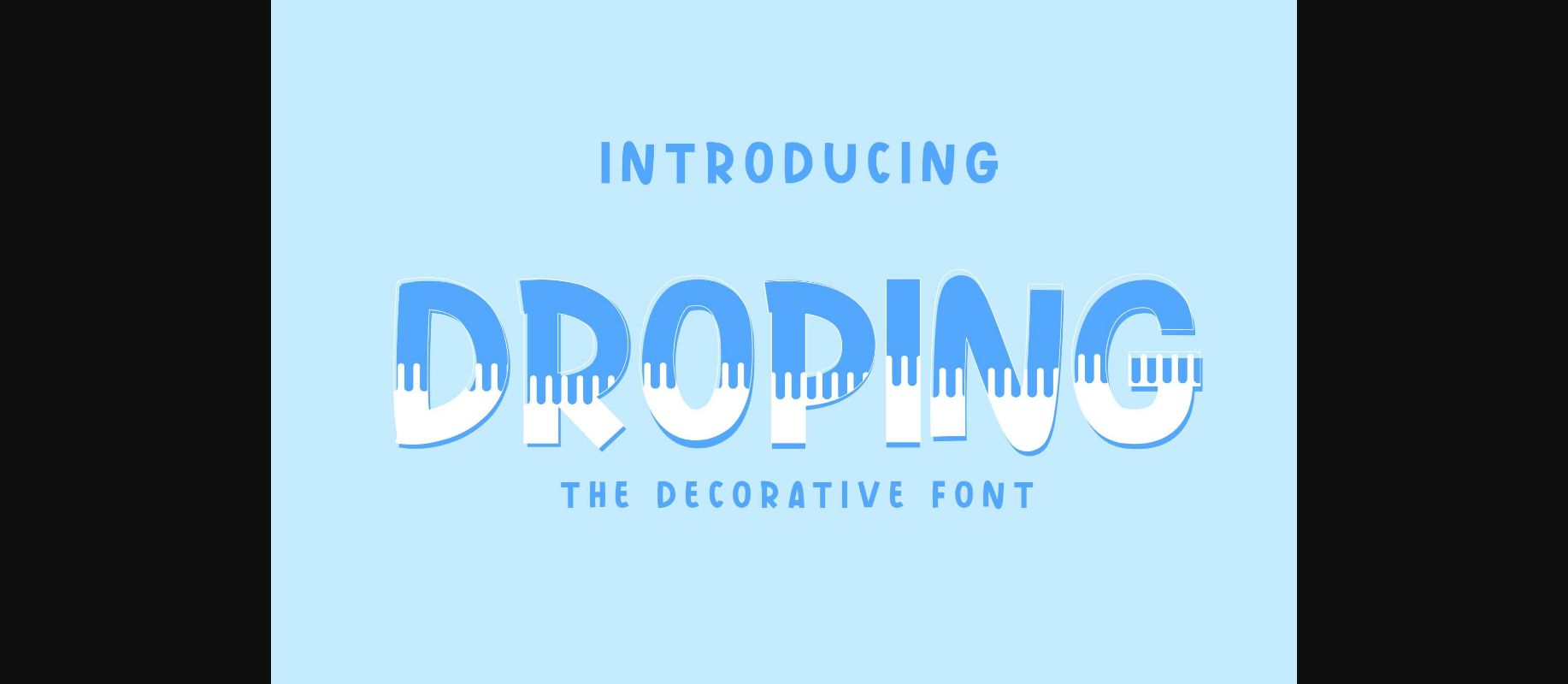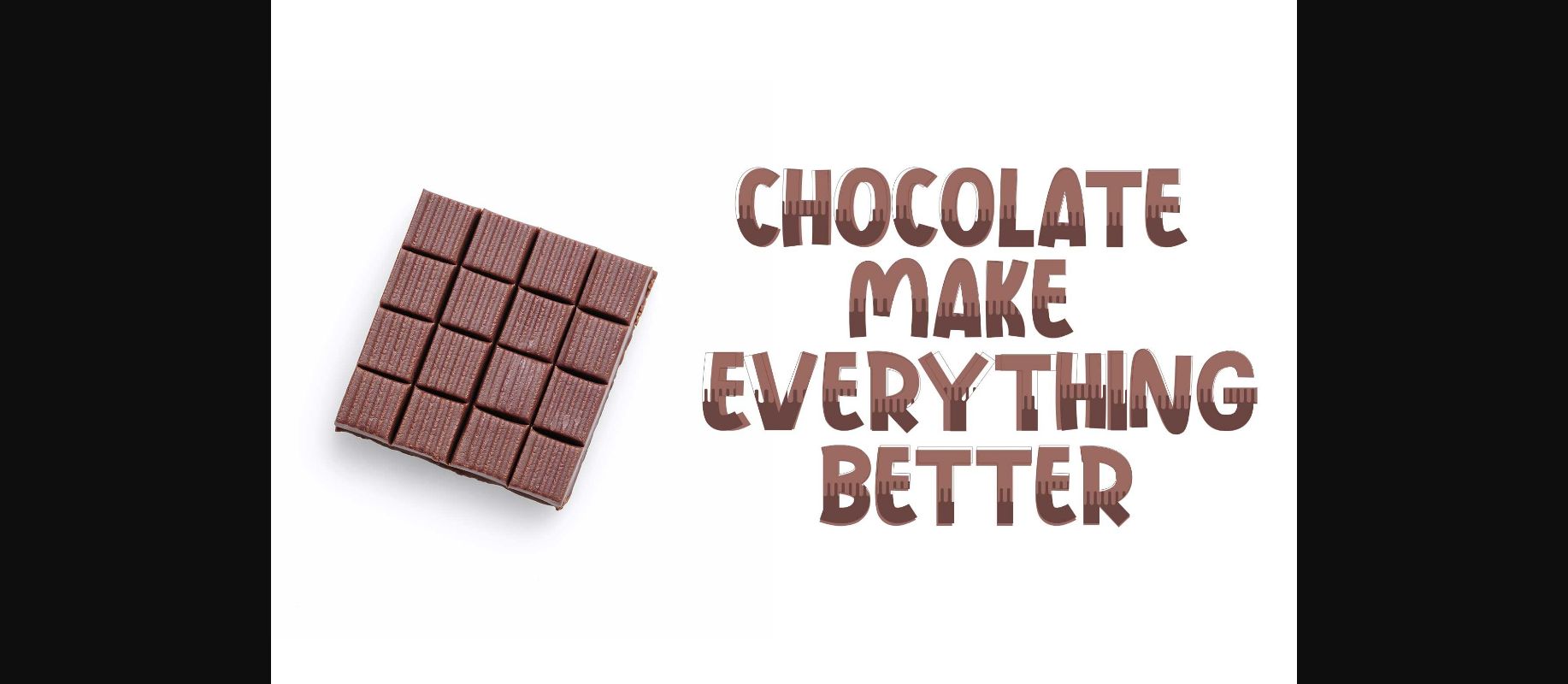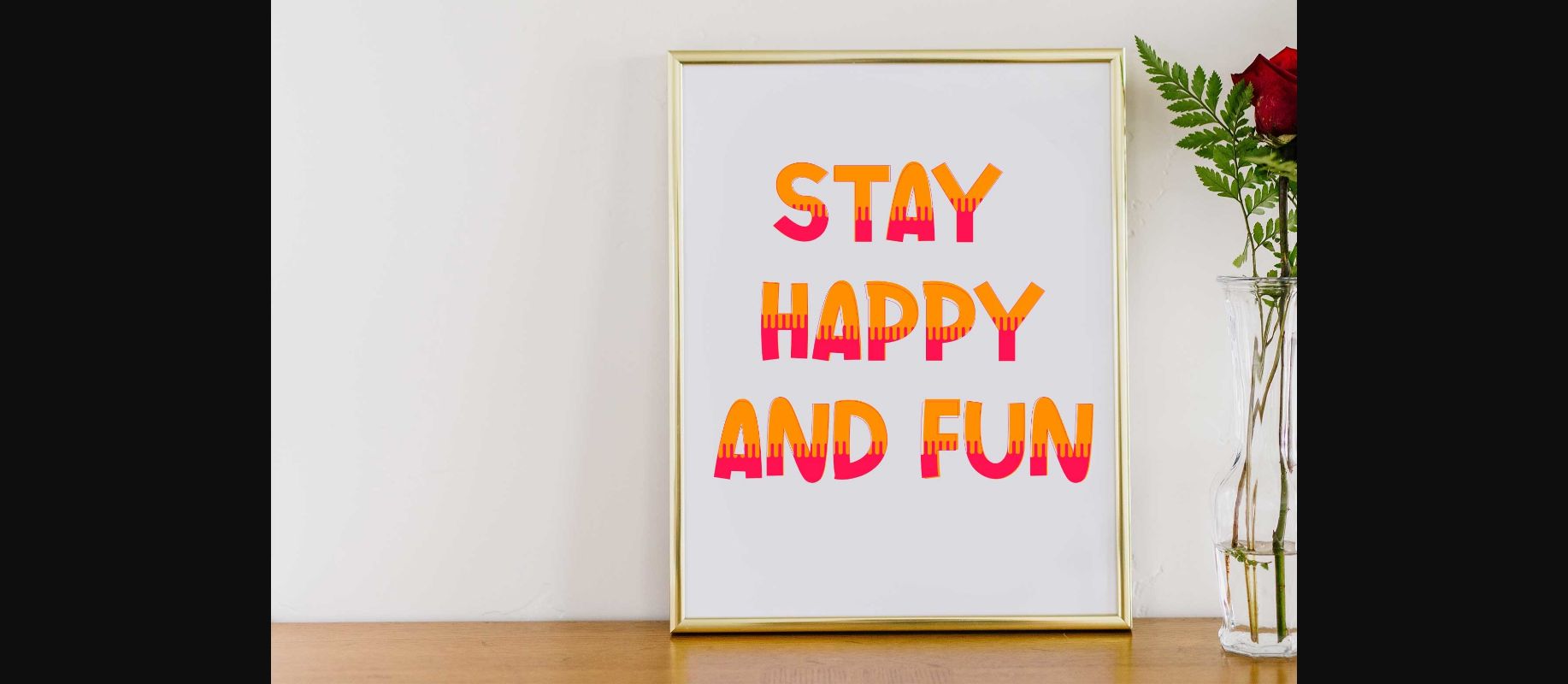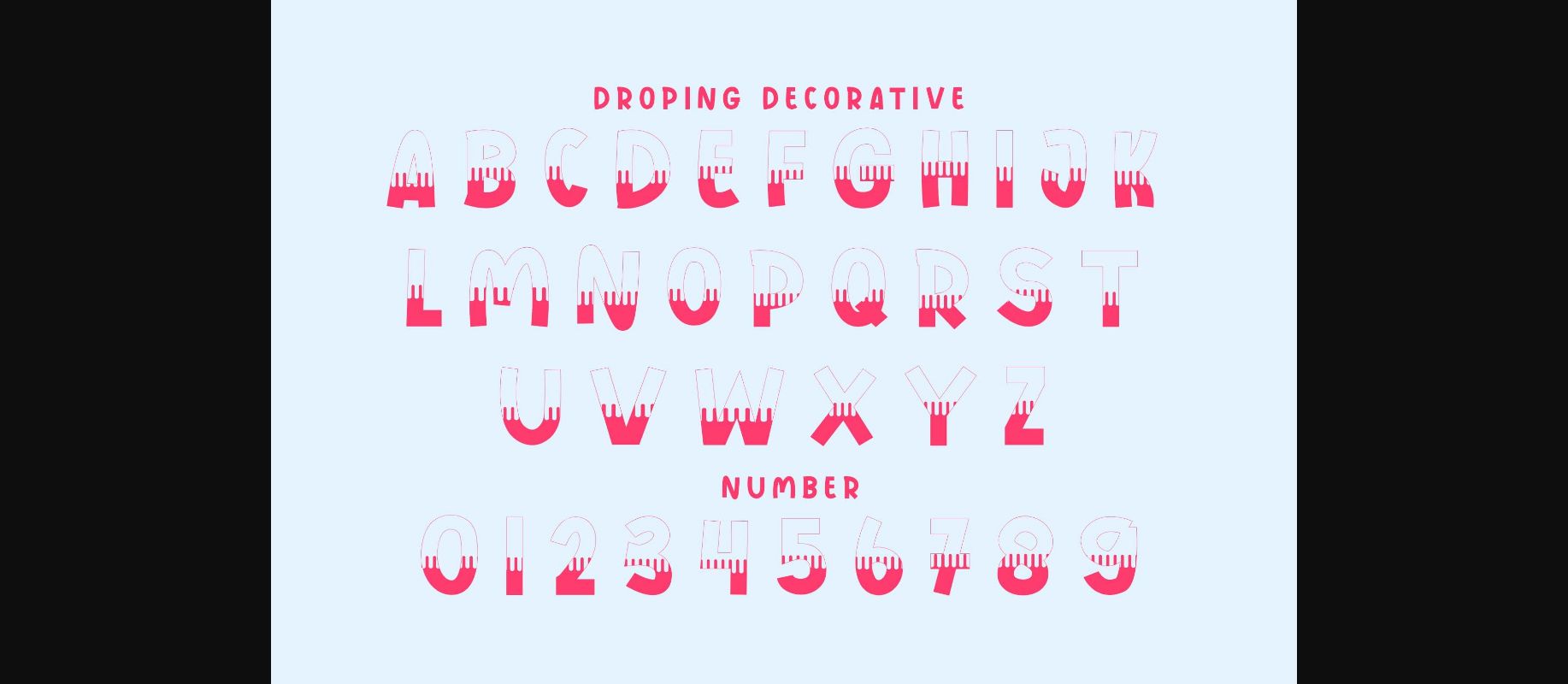
About Droping Font
Droping is a unique and whimsical decorative and display duo font designed for your creative ideas. Perfect for posters, cartoons, children’s theme designs, t-shirts, digital designs, and more. Add it to any of your creative ideas, and watch how it makes it stand out and be colorful!